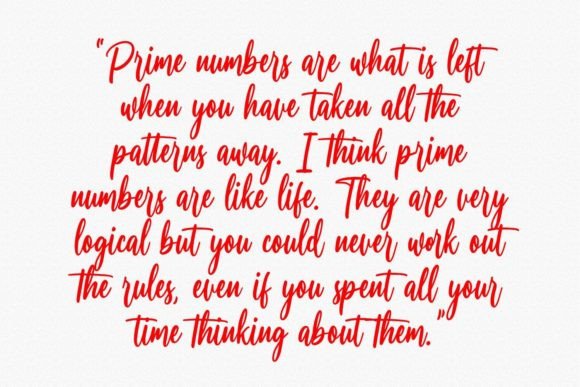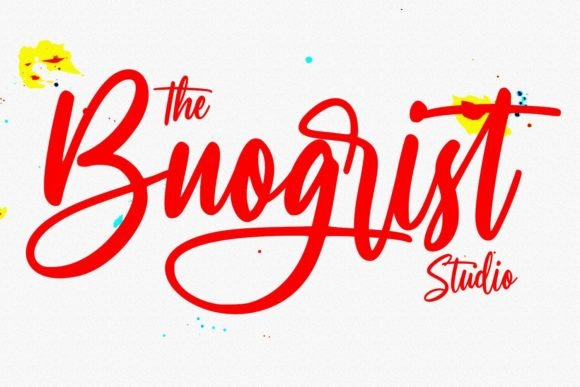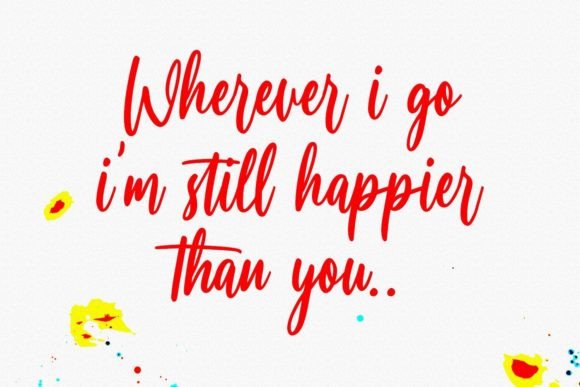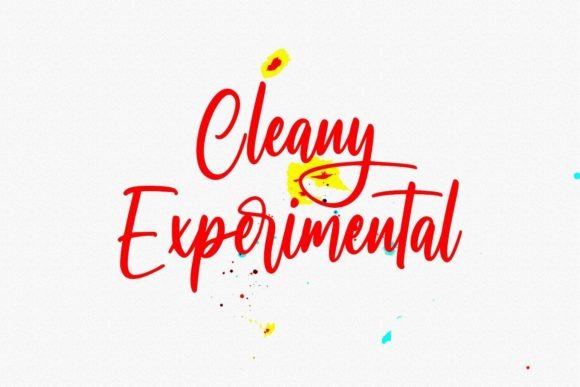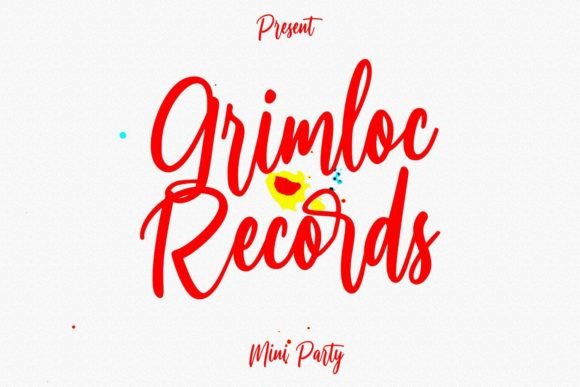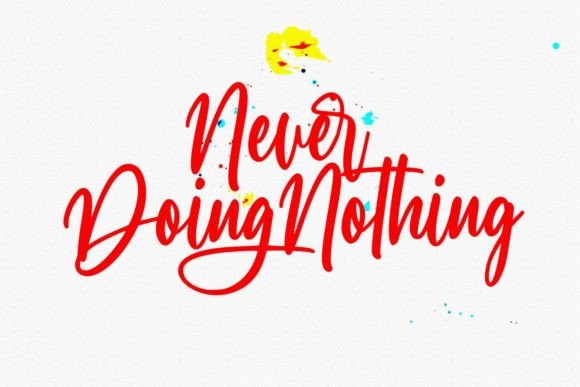
Introducing Claughter Font: The Perfect Addition to Your Design Arsenal
In the world of typography, fonts play a crucial role in conveying the tone and personality of a design. Whether you’re working on a branding project, crafting a social media post, or creating a stunning visual display, the right font can make all the difference. If you’re on the hunt for a modern, casual, and signature script font that can elevate your designs, look no further than Claughter Font.
What is Claughter Font?
Claughter Font is a contemporary and fresh signature script font designed to add a touch of personality to your creative projects. With its modern and casual vibe, it’s perfect for designers, crafters, and anyone looking to create outstanding visual content. This versatile font is suitable for a wide range of applications, from logos and branding to social media graphics, posters, and more.
Key Features of Claughter Font
- Modern and Casual Design: Claughter Font boasts a sleek and modern design that’s perfect for creating fresh and eye-catching visuals.
- Signature Script Style: This font features a beautiful signature script style that’s ideal for adding a personal touch to your designs.
- Contemporary and Fresh: Claughter Font is designed to be contemporary and fresh, ensuring your designs stay on-trend and engaging.
- Versatile and Adaptable: This font is perfect for a wide range of design applications, from digital projects to print materials.
Why Choose Claughter Font?
With so many fonts available, why should you choose Claughter Font for your design projects? Here are just a few compelling reasons:
- Unique and Eye-Catching: Claughter Font offers a unique and eye-catching design that’s sure to grab attention and leave a lasting impression.
- Easy to Read and Understand: Despite its creative and artistic design, Claughter Font remains easy to read and understand, making it perfect for body text and headlines.
- Customizable and Flexible: This font is highly customizable, allowing you to adjust the size, color, and style to suit your design needs.
- Time-Saving and Efficient: With Claughter Font, you can create stunning designs quickly and efficiently, saving you time and effort.
How to Use Claughter Font in Your Designs
Ready to incorporate Claughter Font into your design projects? Here are some tips to get you started:
- Pair it with Other Fonts: Combine Claughter Font with other fonts to create a unique and visually appealing typography combination.
- Experiment with Colors and Sizes: Play around with different colors and sizes to find the perfect combination for your design.
- Use it for Headlines and Titles: Claughter Font is perfect for headlines and titles, adding a touch of personality and flair to your designs.
- Add it to Your Branding Materials: Use Claughter Font in your branding materials, such as logos, business cards, and letterheads, to create a consistent and professional look.
In conclusion, Claughter Font is a modern and casual signature script font that’s perfect for designers, crafters, and anyone looking to create outstanding visual content. With its unique and eye-catching design, versatility, and ease of use, it’s an excellent addition to any design arsenal. So why wait? Add Claughter Font to your creative projects today and make them shine!